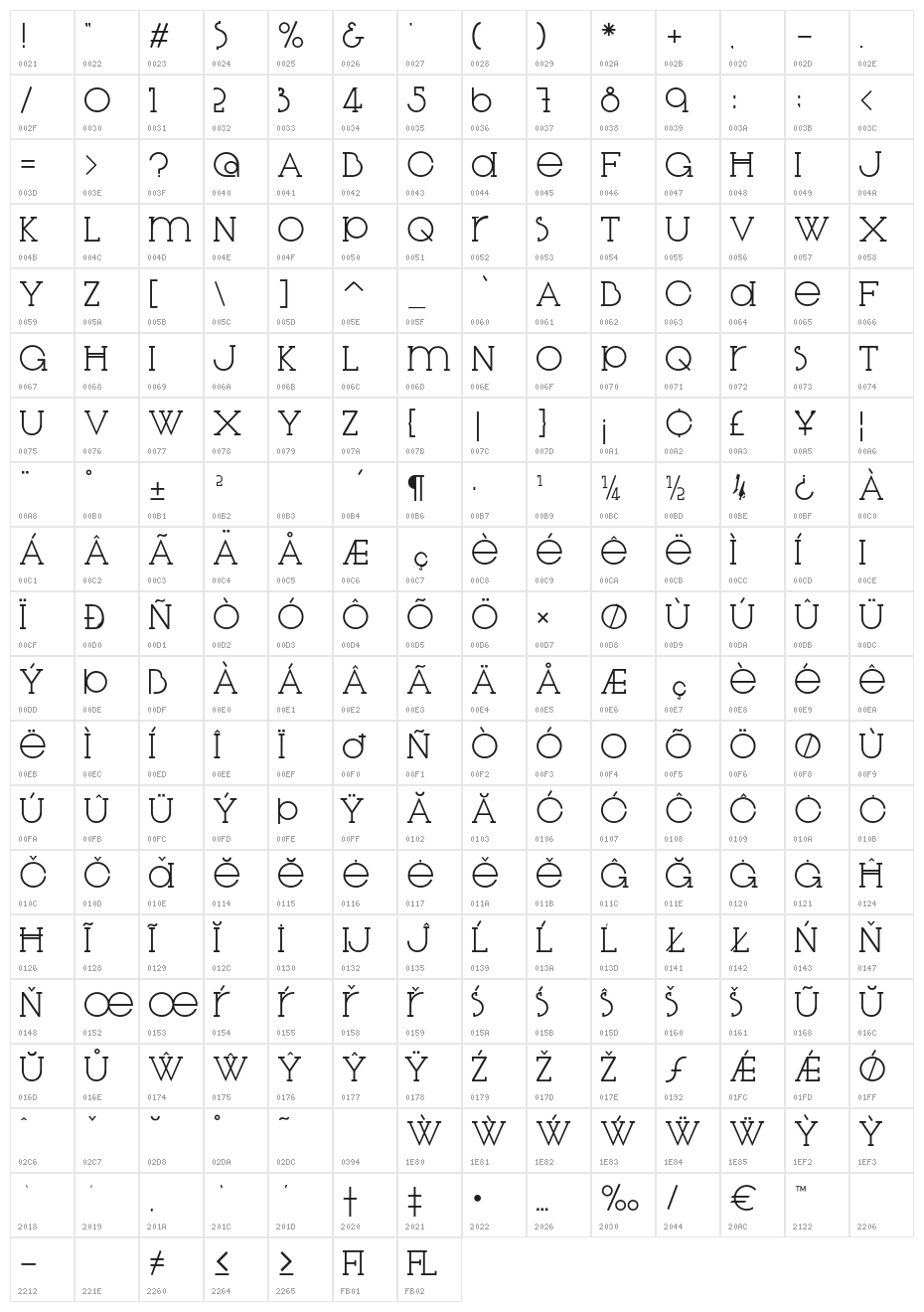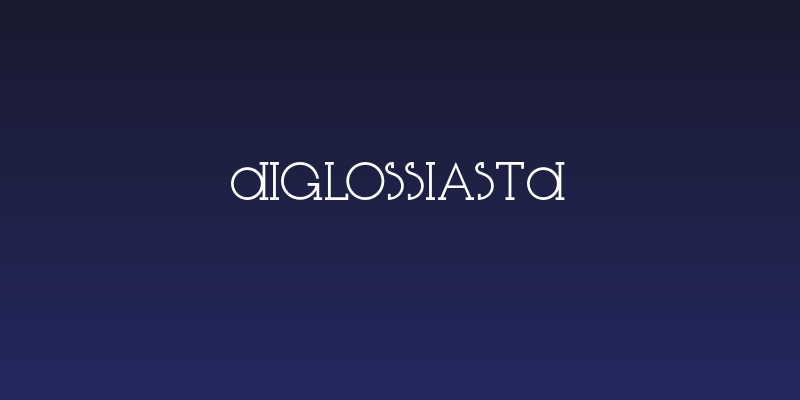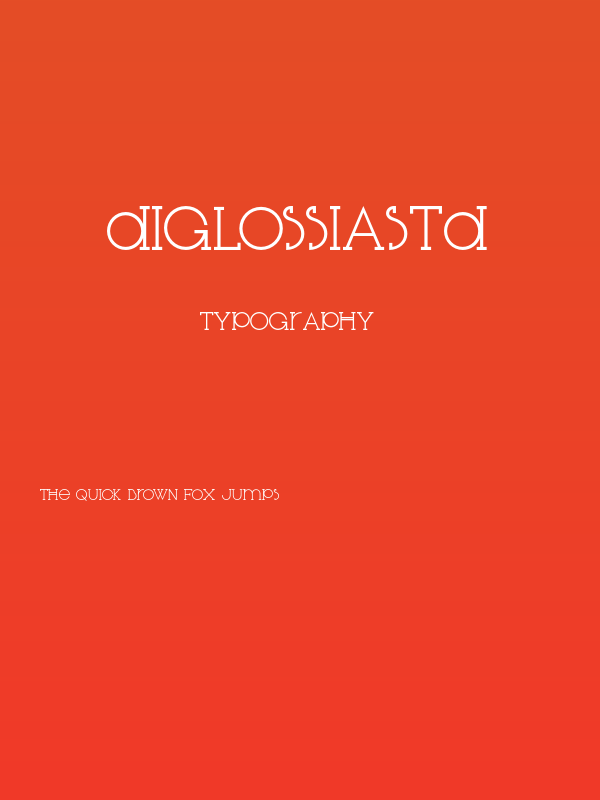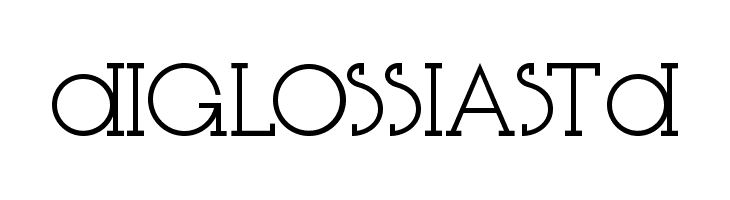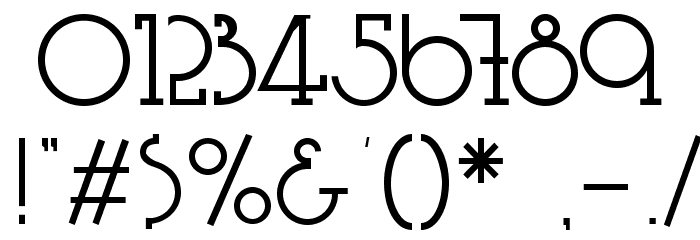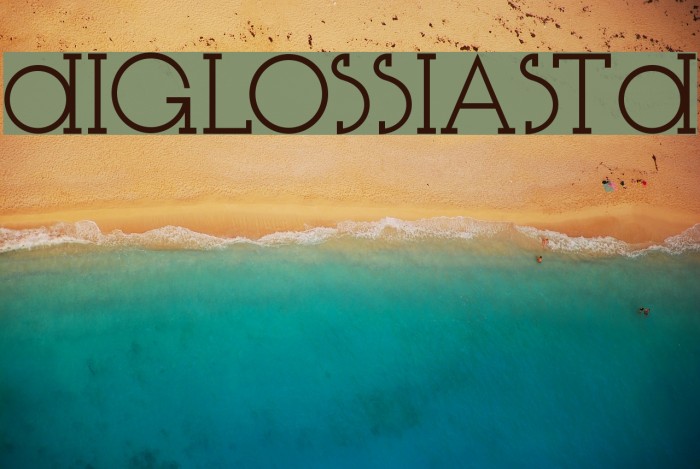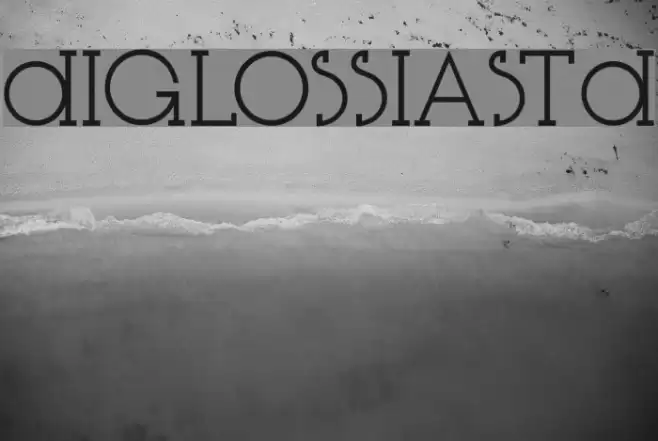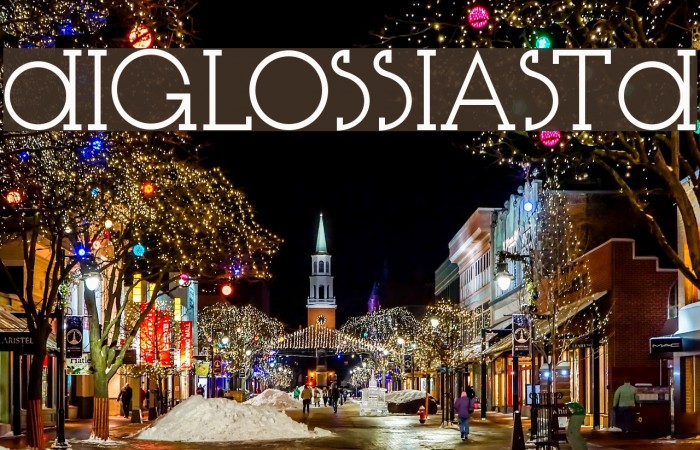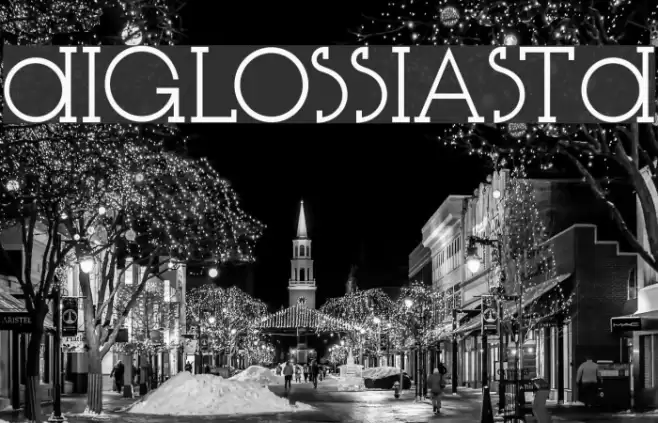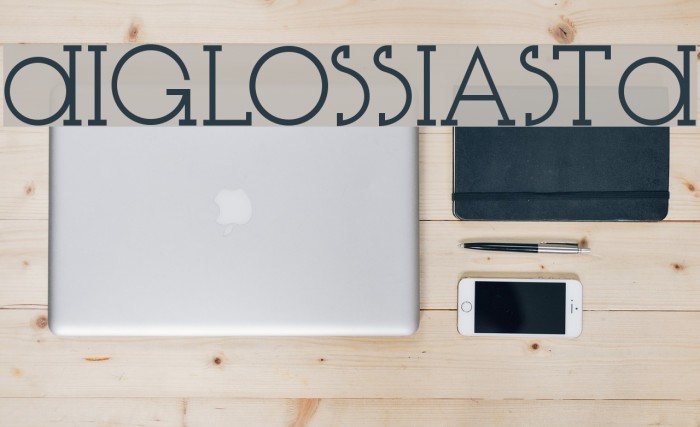
DiglossiaStd Font
| Anwendungsfall | Headlines, Logos, Branding |
| Vorgeschlagene Projekte | Ideal for branding, advertising, and editorial design projects where a modern and stylish look is desired. |